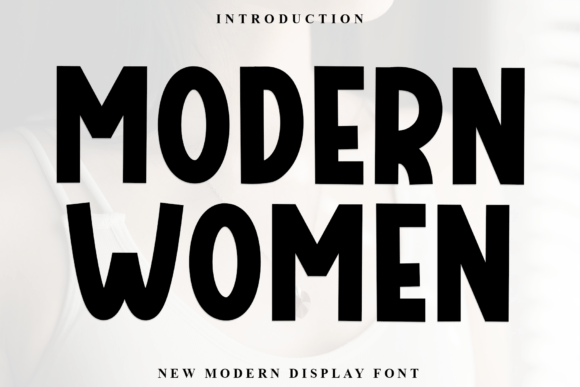
Modern Women Font: Elevate Your Designs with a Unique and Versatile Typeface
In the world of typography, a font can make or break a design project. With the right font, you can convey your message, evoke emotions, and create a lasting impression on your audience. This is where Modern Women Font comes in – a beautiful and eye-catching typeface designed with a soft, unique touch. In this article, we’ll explore the features, benefits, and uses of Modern Women Font, and why it’s an excellent choice for designers, artists, and creative professionals.
Distinctive Strokes and Special Character
Modern Women Font boasts distinctive strokes that give it a special character, making it stand out from other fonts. Its unique design makes it meaningful and versatile for future use, allowing you to create a wide range of designs, from elegant and sophisticated to playful and creative. The font’s soft touch adds a touch of warmth and approachability, making it perfect for designs that require a personal and emotional connection with the audience.
Perfect for Design Projects, Crafts, and Creative Works
Modern Women Font is perfect for a wide range of design projects, crafts, and creative works. Its unique design and versatility make it an excellent choice for:
- Graphic design projects, such as brochures, flyers, posters, and business cards
- Crafts, such as handmade cards, invitations, and gift tags
- Digital products, such as ebooks, courses, and software
- Web design, including website headers, titles, and descriptions
- Social media graphics, such as Facebook and Instagram posts
Benefits of Using Modern Women Font
Using Modern Women Font in your designs offers several benefits, including:
- Enhanced visual appeal: The font’s unique design and soft touch add a touch of elegance and sophistication to your designs, making them more visually appealing.
- Increased versatility: Modern Women Font is perfect for a wide range of design projects, crafts, and creative works, making it an excellent addition to your font library.
- Improved brand identity: The font’s distinctive strokes and special character can help create a consistent brand identity across different platforms and designs.
- Emotional connection: The font’s soft touch and unique design can help create an emotional connection with your audience, making your designs more relatable and memorable.
Characteristics of Modern Women Font
Modern Women Font has several characteristics that make it an excellent choice for designers and creative professionals:
- Unique design: The font’s distinctive strokes and special character make it stand out from other fonts.
- Soft touch: The font’s soft touch adds a touch of warmth and approachability to your designs.
- Versatility: Modern Women Font is perfect for a wide range of design projects, crafts, and creative works.
Tips for Using Modern Women Font
Here are some tips for using Modern Women Font in your designs:
- Use it for headings and titles: The font’s unique design and soft touch make it perfect for headings and titles.
- Experiment with different colors: Modern Women Font looks great in different colors, so experiment with different color schemes to find the one that works best for your design.
- Pair it with other fonts: The font pairs well with other fonts, so feel free to experiment with different font combinations to create a unique look.
- Use it consistently: Use Modern Women Font consistently across different designs and platforms to create a consistent brand identity.
Modern Women Font is a beautiful and eye-catching typeface designed with a soft, unique touch. Its distinctive strokes give it a special character, making it meaningful and versatile for future use. With its compatibility with various applications, including Windows and open-source platforms, this natural font style is ideal for a wide range of products. Whether you’re a designer, artist, or creative professional, Modern Women Font is an excellent choice for your design projects, crafts, and creative works.